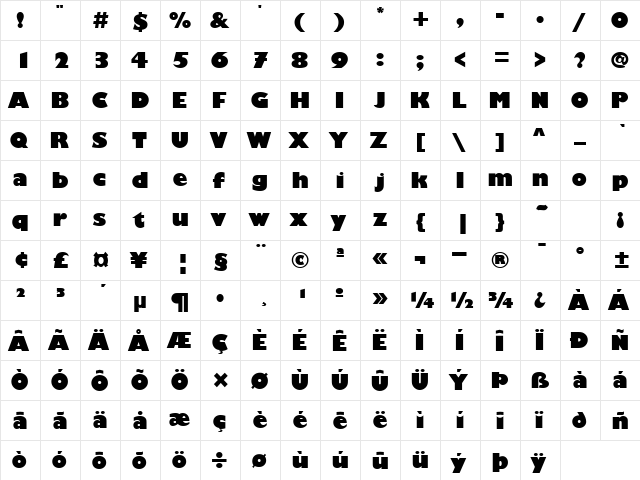
ChantillyDisplay Regular
Design Context for ChantillyDisplay Typeface
ChantillyDisplay brings ornamental detail and strong personality to headlines and identities, where visual impact matters more than quiet functionality.
Font Pairing: Pair with a clean neutral sans-serif for body copy to let ChantillyDisplay's character lead without overwhelming the composition.
Pro Tip: Use ChantillyDisplay exclusively at display sizes — it was designed to be seen, not read at length. Let a neutral companion handle body copy.